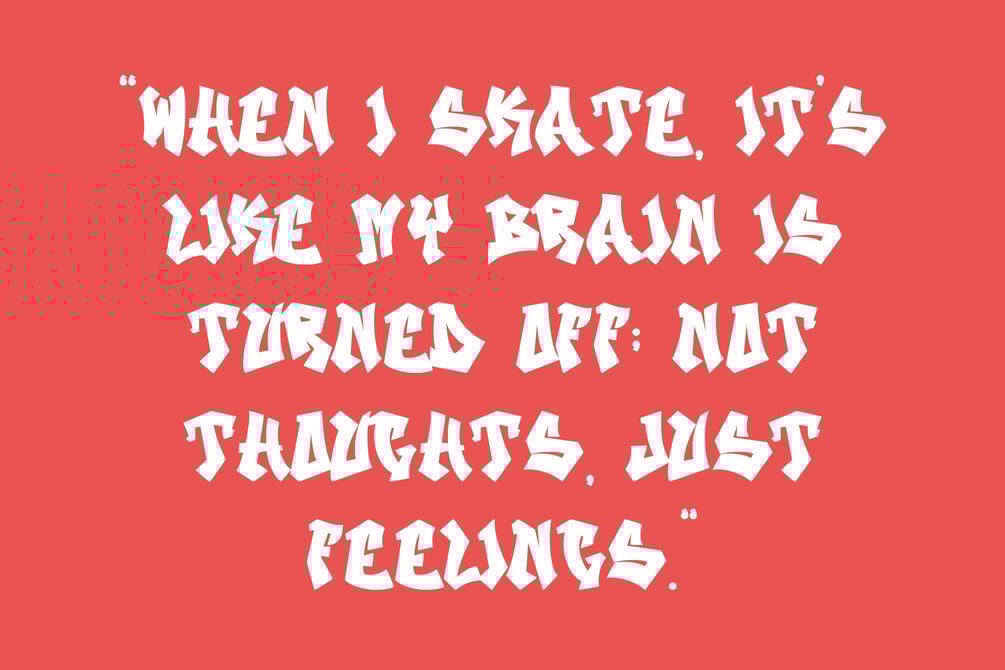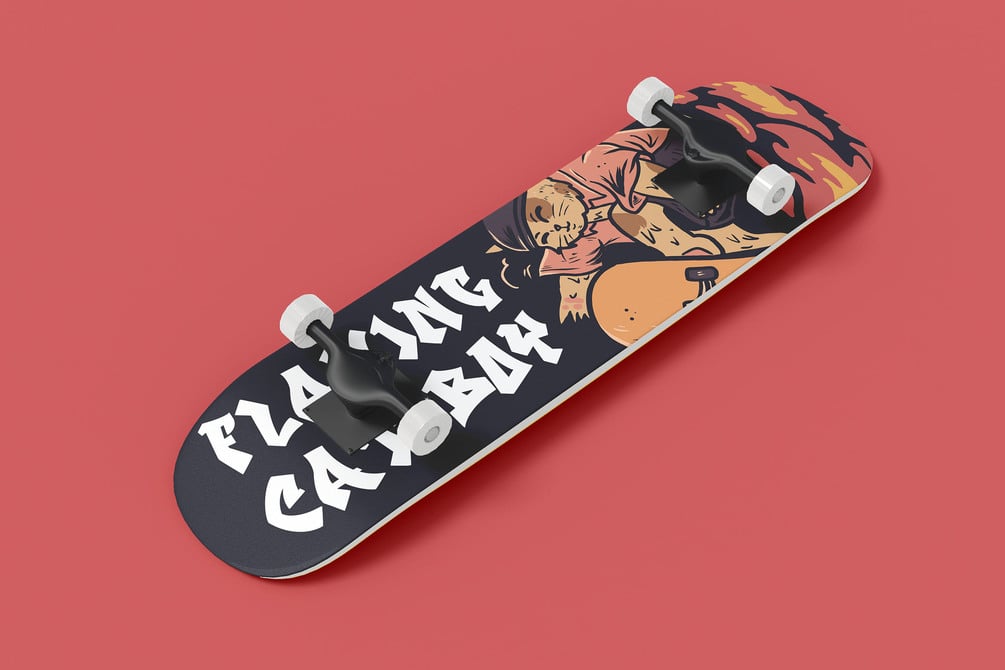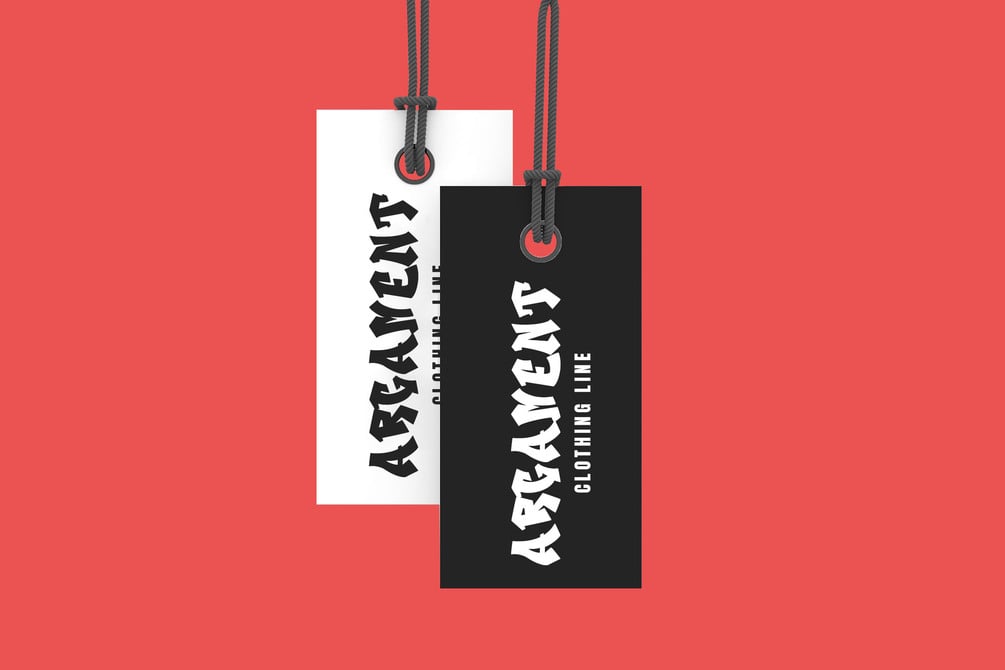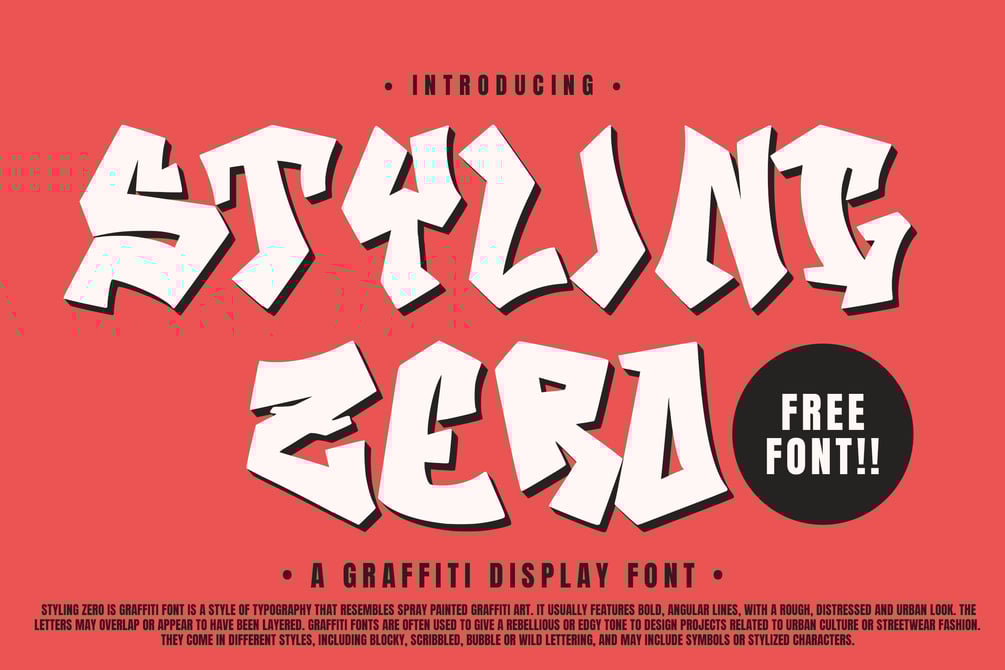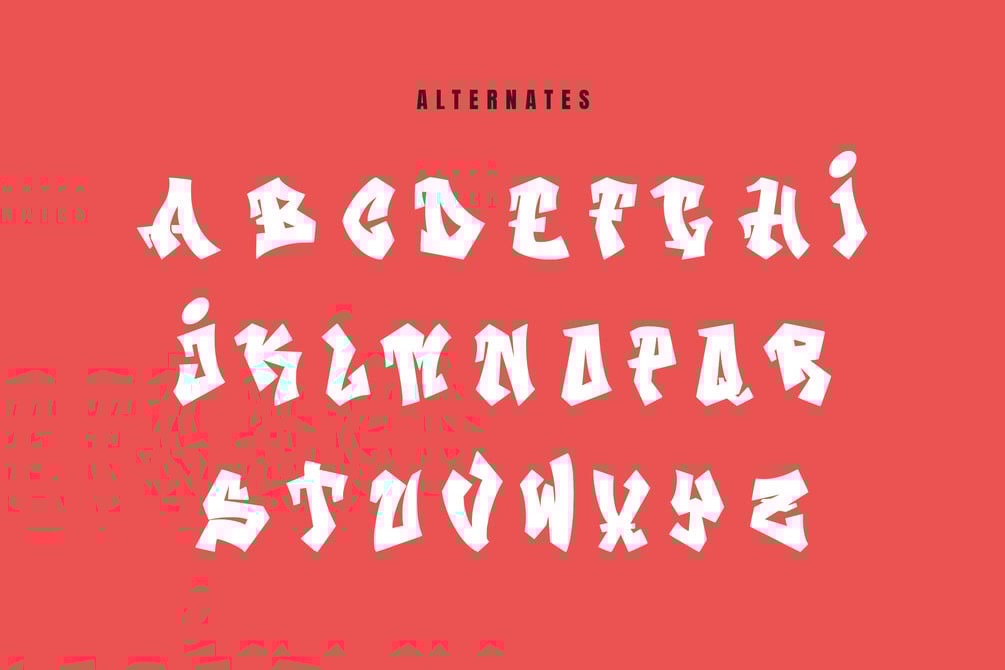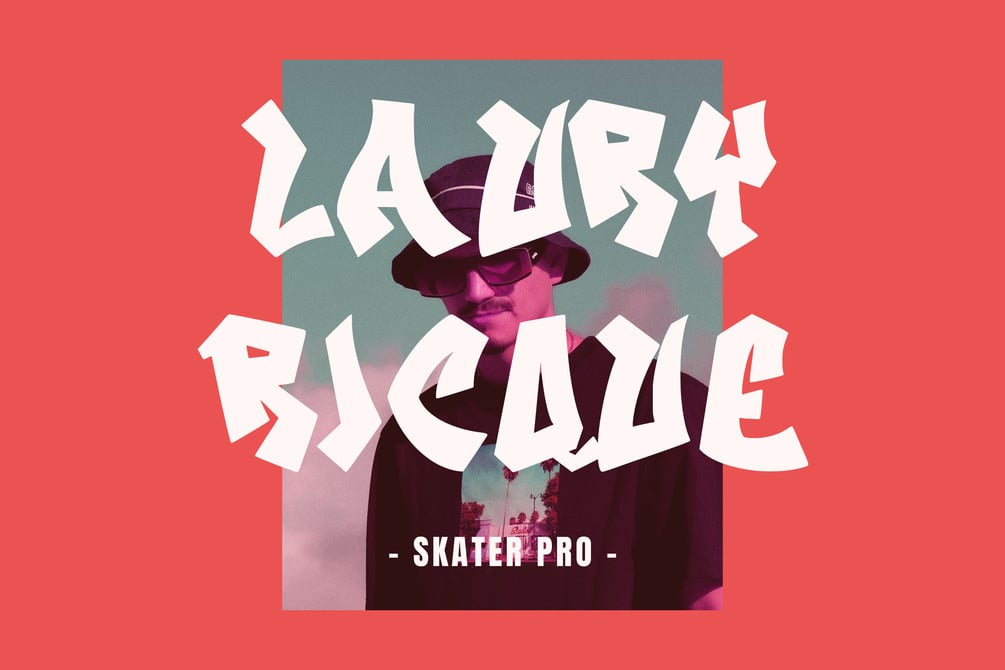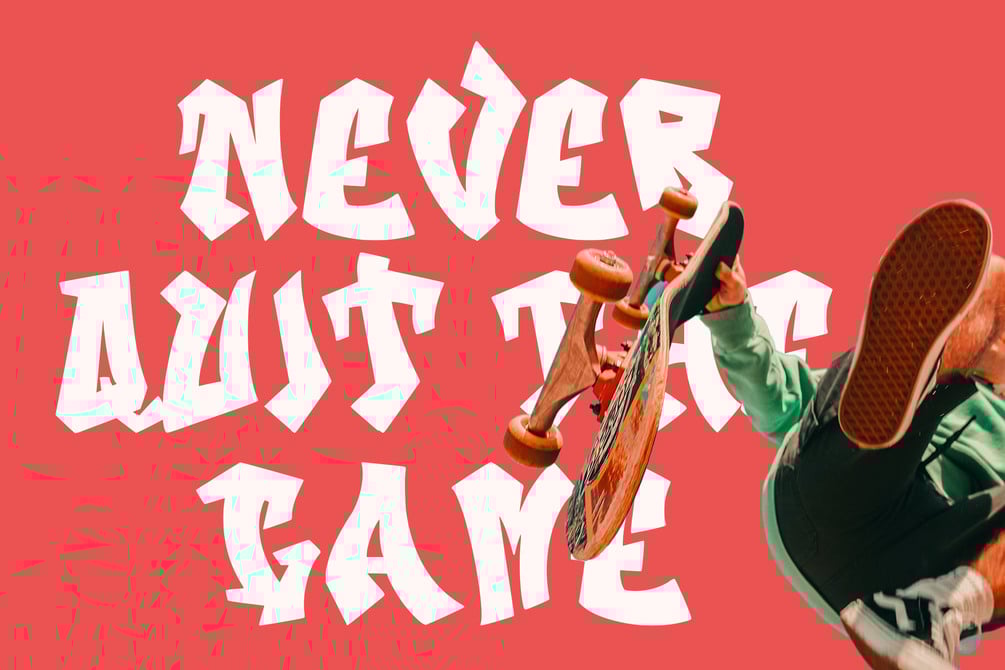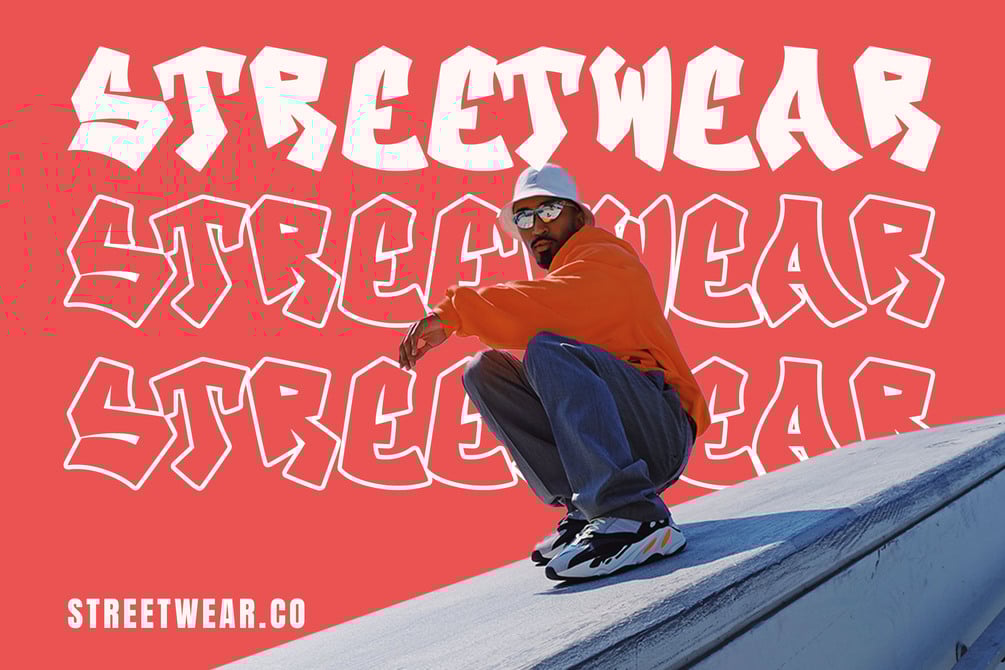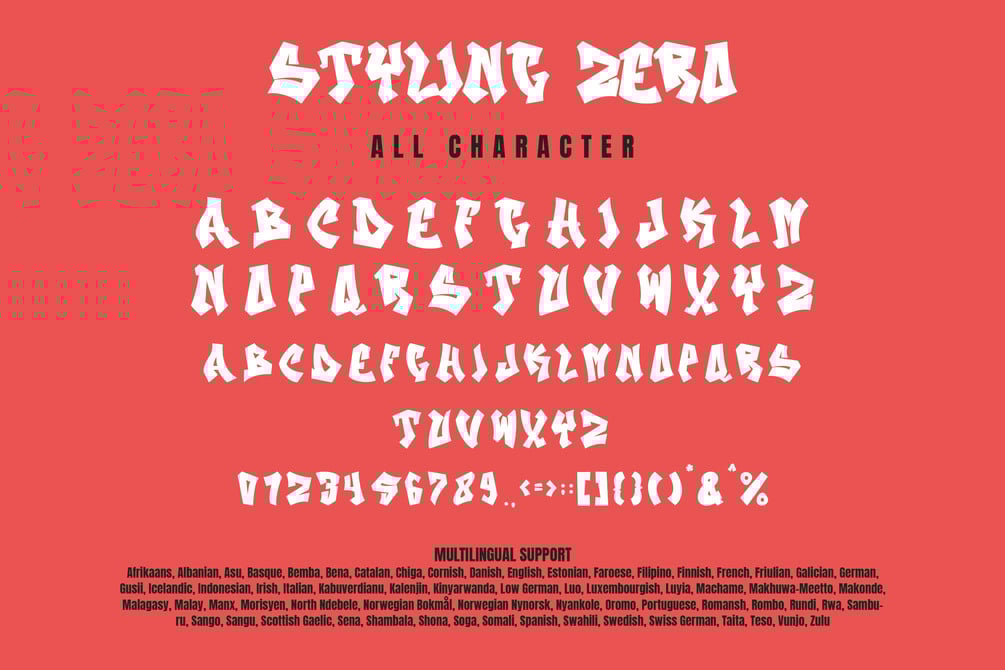
Styling Zero - Graffiti Font
styling zero is graffiti font is a style of typography that resembles spray painted graffiti art. It usually features bold, angular lines, with a rough, distressed and urban look. The letters may overlap or appear to have been layered. Graffiti fonts are often used to give a rebellious or edgy tone to design projects related to urban culture or streetwear fashion. They come in different styles, including blocky, scribbled, bubble or wild lettering, and may include symbols or stylized characters.